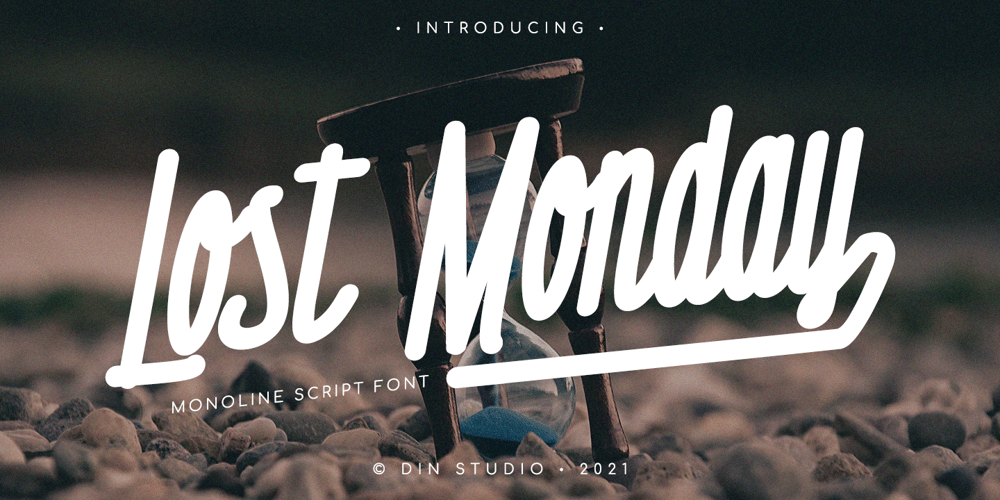
Lost Monday Font Family was designed by Donis Miftahudin and published by Din Studio. Lost Monday contains 1 styles and family package options. Is your project missing something that makes people going madly in love? Looking for a gorgeous font to engage and captivate your audience? What if we told you that we have a solution to maximize your designs?Introducing Lost Monday-A Monoline Font This is a different level font. A modern and stylish handcrafted monoline font that’ll make your audience swoon and enhance your projects. Every stroke and curve was created to capture the essence of simple but style. With stylish and passion edged into every curve and twist of this brush font – you’ll be sure to boost your sales and make the best impressions. Use it for headings, logos, business cards, printed quotes, invitations of all sorts, cards, packaging, and your website or social media branding. Lost Monday includes Multilingual Options to make your branding globally acceptable. Features: Beautiful Ligatures Stylistic Sets Multilingual Support PUA Encoded Numerals and Punctuation Thank you for downloading premium fonts from Din Studio